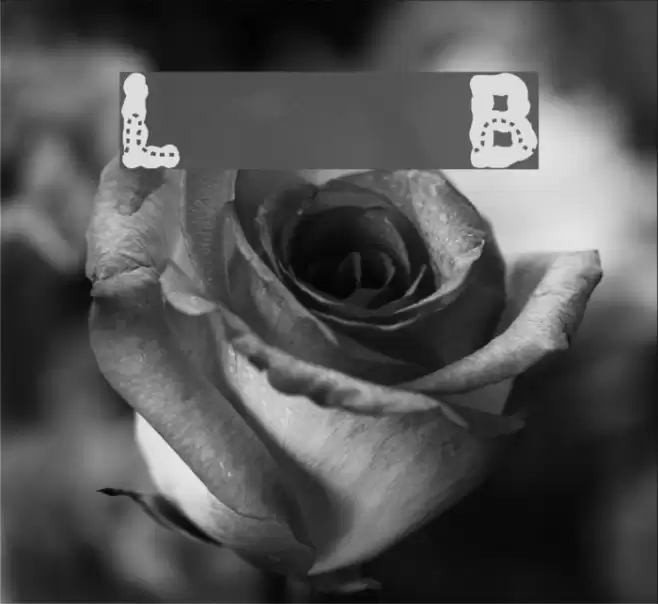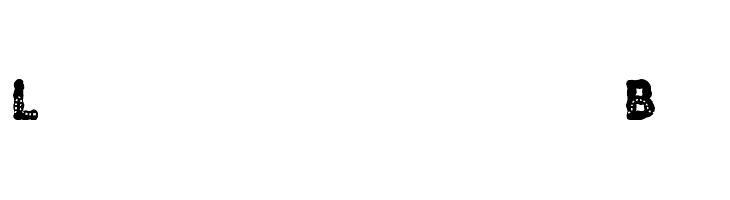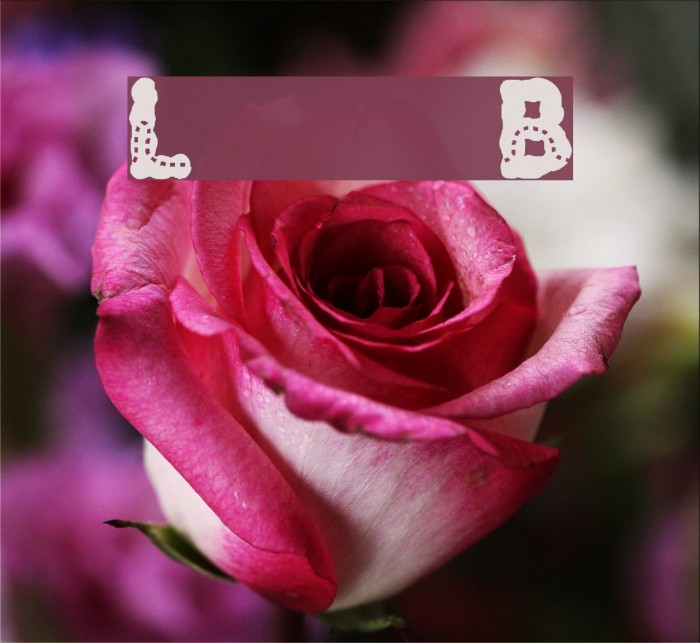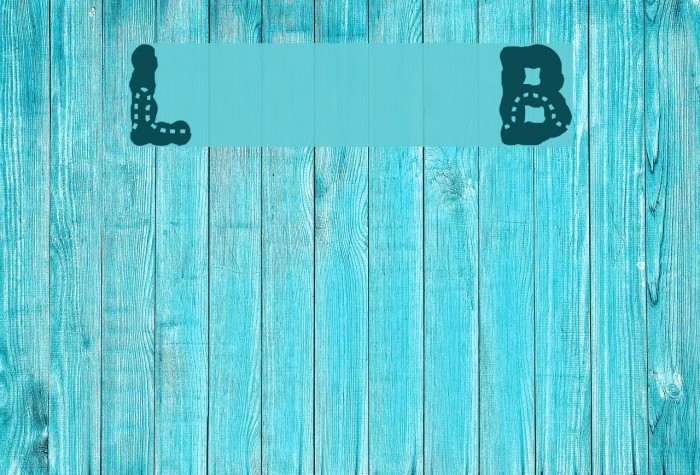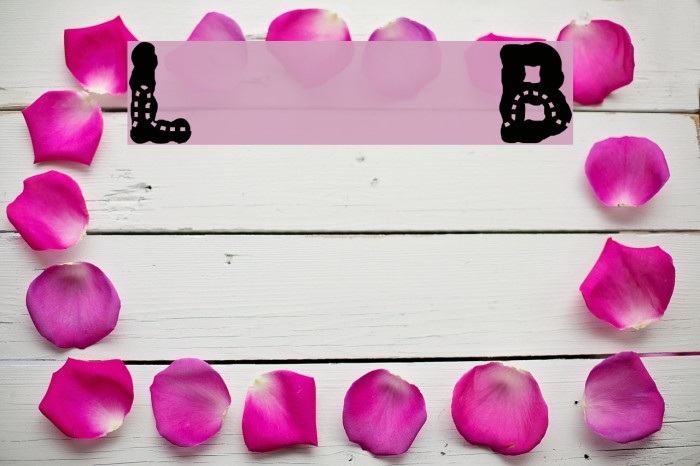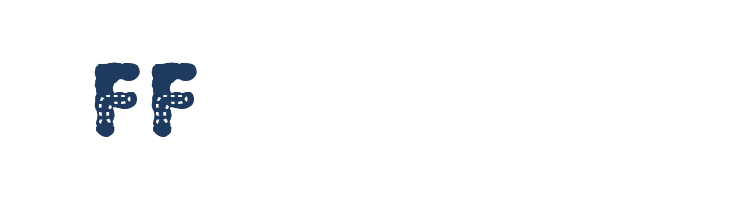
Lost in the fontrest Bold Font
Lost in the fontrest Bold Description
This font features a playful and bold design with a unique texture that resembles a hand-drawn style. Each letter is filled with intricate patterns and dots, giving it a whimsical and artistic appearance. The boldness of the characters makes it stand out, while the irregular edges add a touch of creativity and fun. The font maintains a consistent weight throughout, ensuring readability despite its decorative elements. Its distinct style is perfect for projects that require a touch of personality and flair.
A bold, playful font with a hand-drawn, textured style from Decorative fonts.
- Proposed Projects: Ideal for children's book covers, playful branding, creative posters, and artistic invitations.